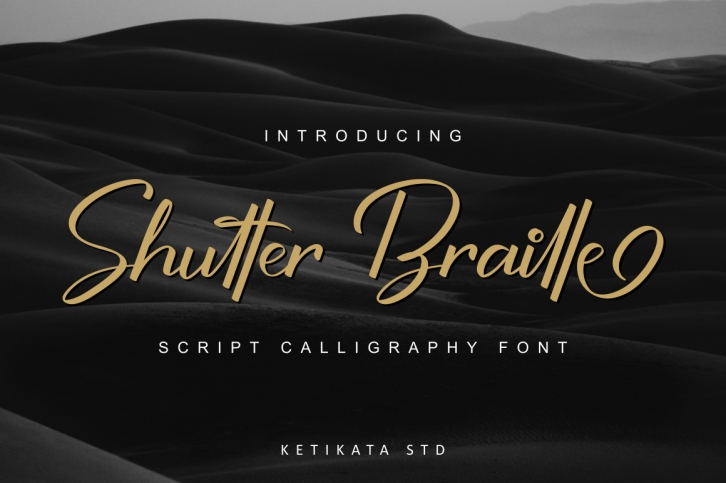
Shutter Braille Script is a great font that was designed by Ketikata Studio. Imagine the amount of combinations you can create using this font! The archive is 9.32 MB and it was released on March 5, 2019. Shutter Braille Script looks beautiful on wedding invitations, greeting cards, logos, posters, labels, t-shirt designs, logos, business cards and is perfect for use in ink or watercolor works, fashion, magazines, packaging and food menus, children's books and more!